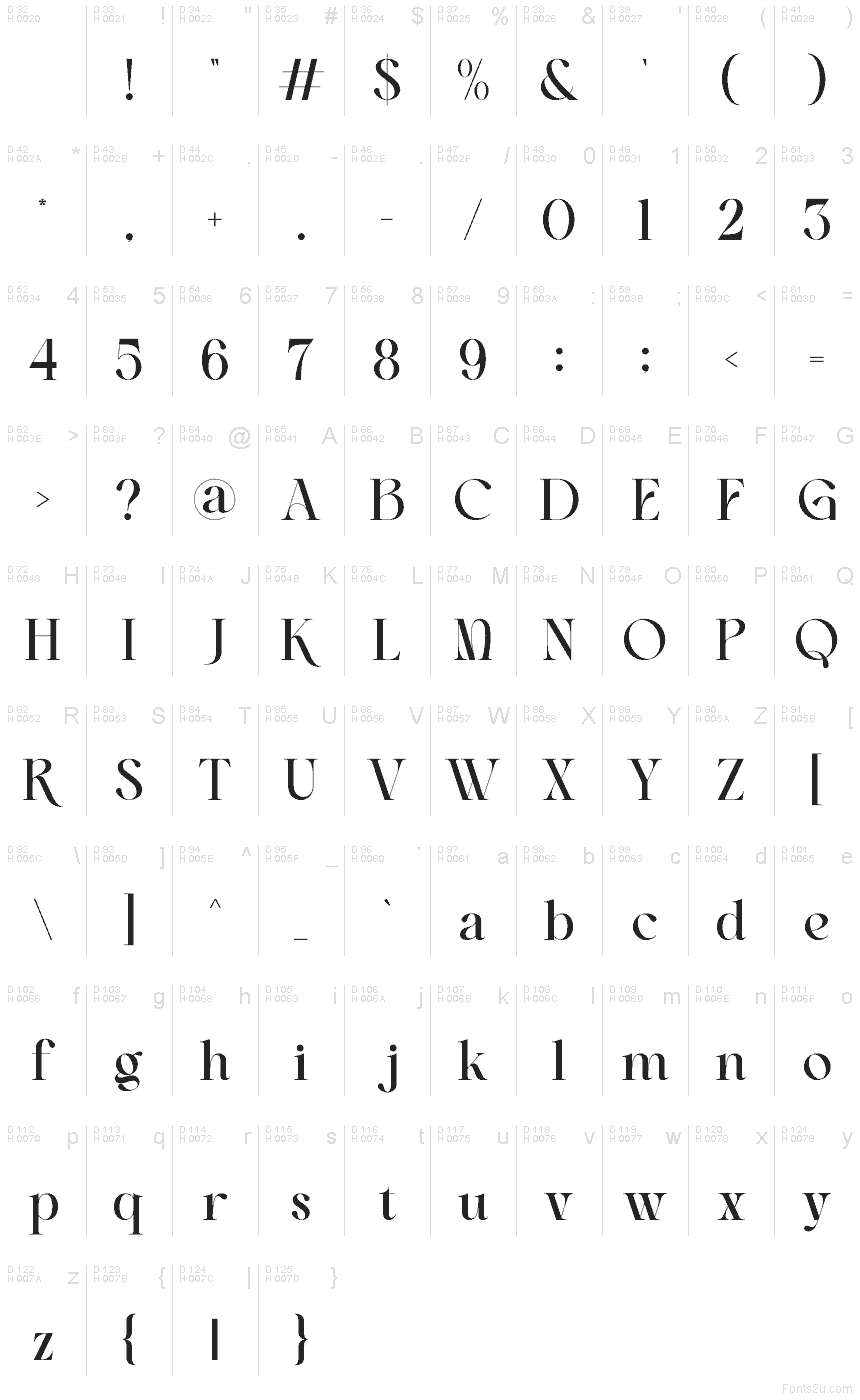
Ranelo
Ranelo font by Ermedia Studio is a free high-contrast serif font that leans into sculpted curves and blade-thin hairlines. Its defining feature is the liquid rhythm between thick strokes and airy counters, giving headlines a luxurious, inky presence without feeling fussy. Subtle flare serifs and sweeping curves create a sense of movement that reads as modern couture rather than old-world formality.
Using Ranelo, titles snap into focus while shorter text lines stay graceful and readable. This free font shines on fashion branding, beauty packaging, magazine covers, event invitations, posters, and elegant logos. Set it large to let the curves breathe, and pair with a simple grotesk sans for captions or UI labels to keep the spotlight on the drama.